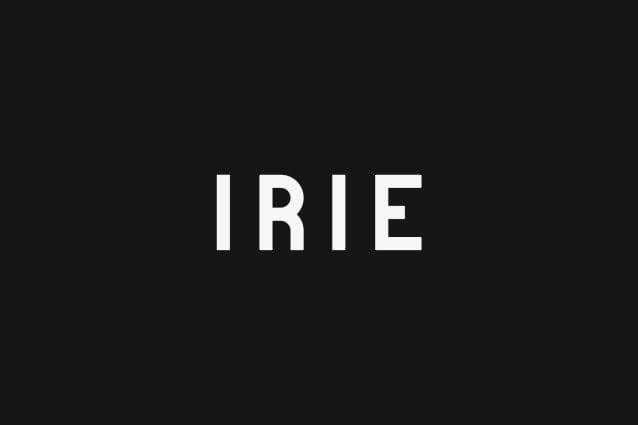
Irie Sans Font
Irie Sans Font is an elegant and versatile sans display font that will make your typography truly unique! It will enchant every logo, branding, headline, or plain text!